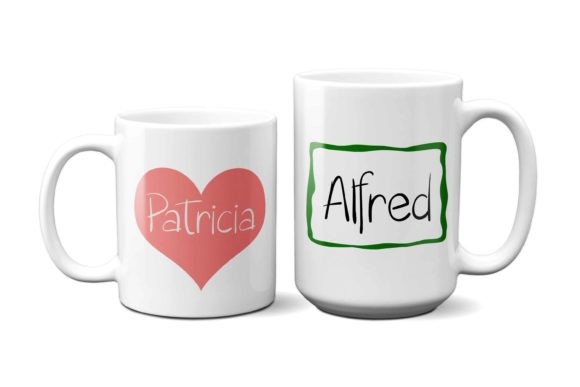
Katalyn Stencil Font
db-ku.com - Script & Handwritten -- Katalyn Stencil is a handwritten stencil font. Its casual charm makes it appear wonderfully down-to-earth, readable and, ultimately, incredibly versatile. Katalyn Stencil will look outstanding in any context, whether it’s being used on busy backgrounds or as a standalone headline!